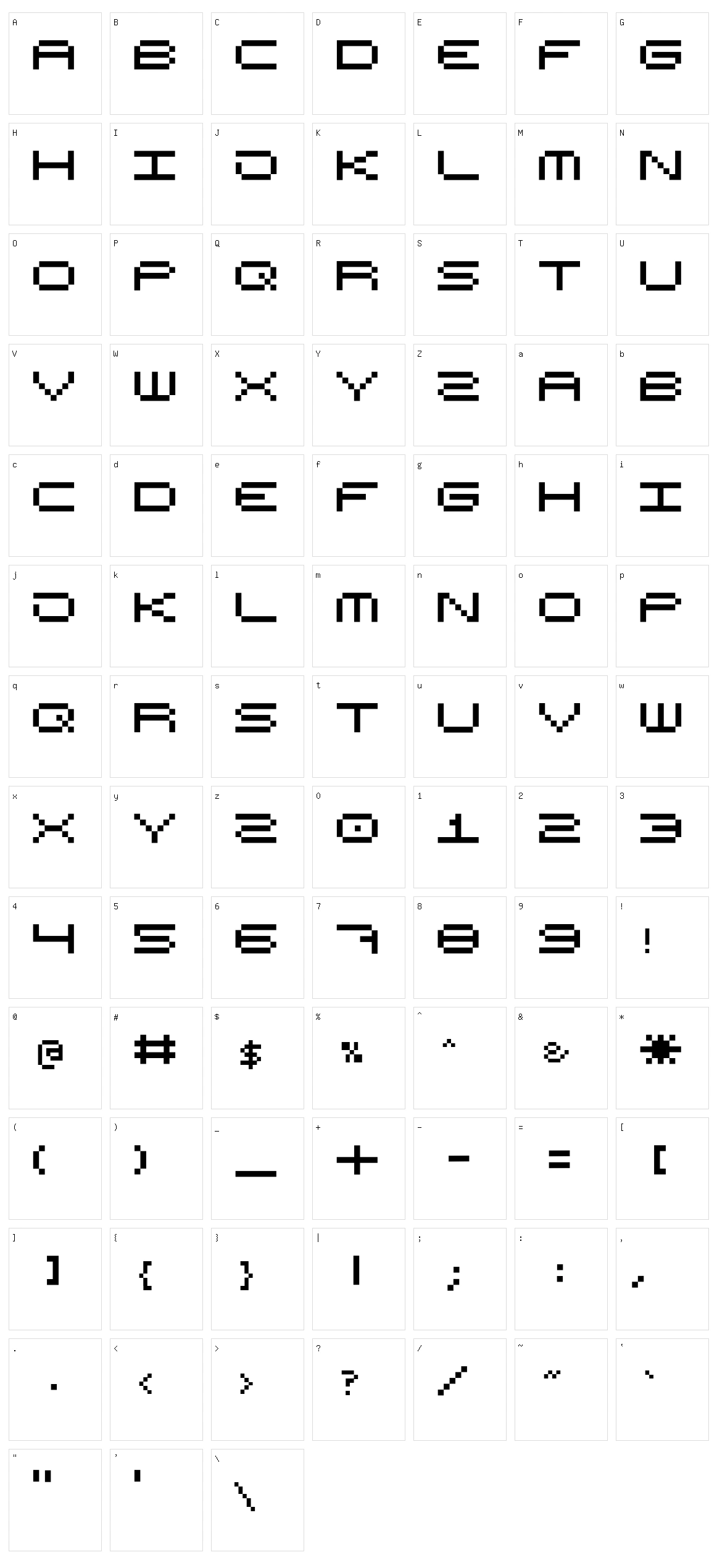
The free font High 75 is carefully designed by Camshaft, showcasing a thoughtful balance of creativity and usability and belongs to the Bitmap font family. When you download the ZIP file, it contains only 7.29 KB of font files, making it lightweight and quick to download. Please review the license details below to understand permitted usage and distribution rights. If license information is not available, we recommend using this font for personal projects only or contacting the author directly for commercial usage permissions.